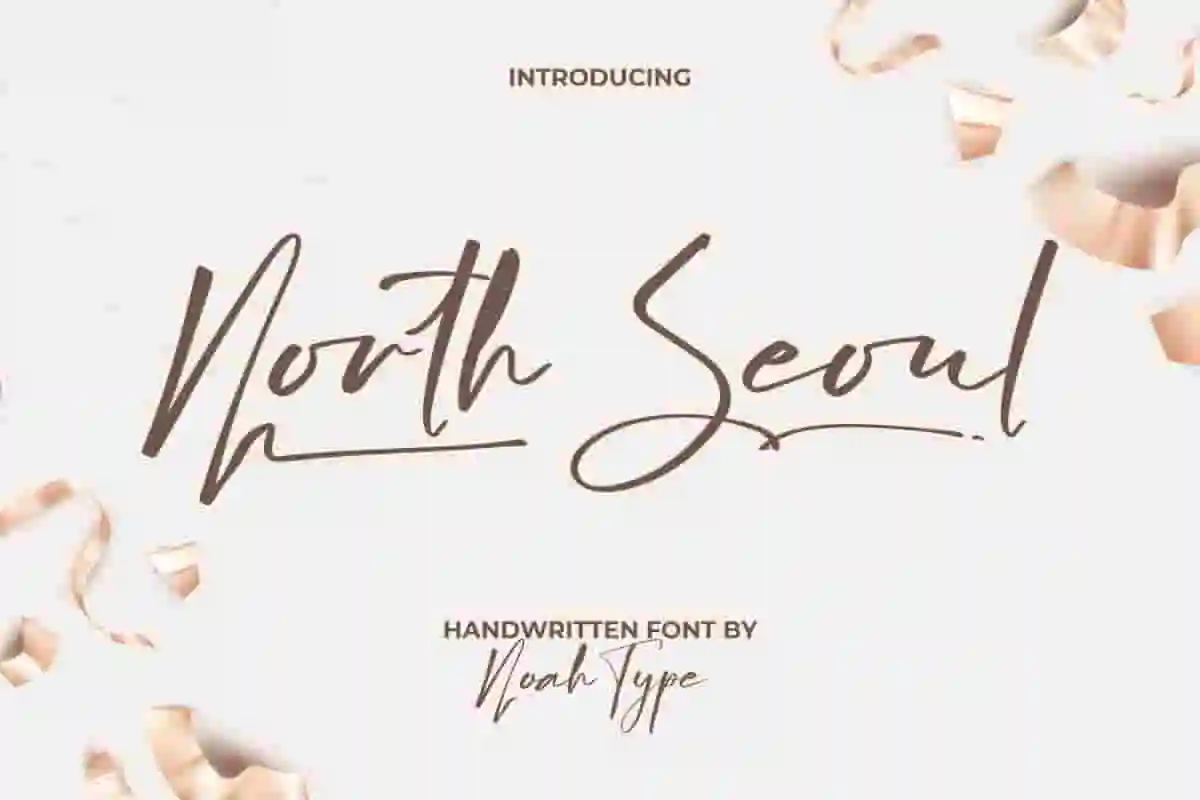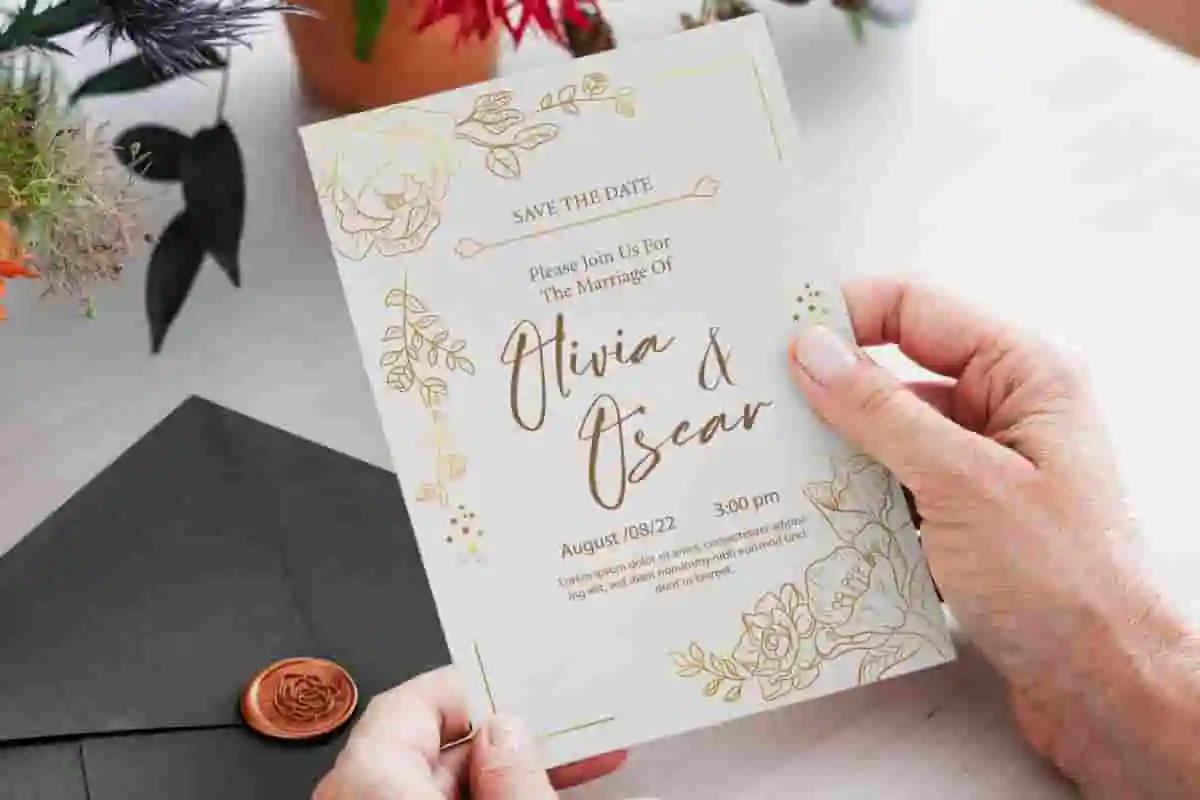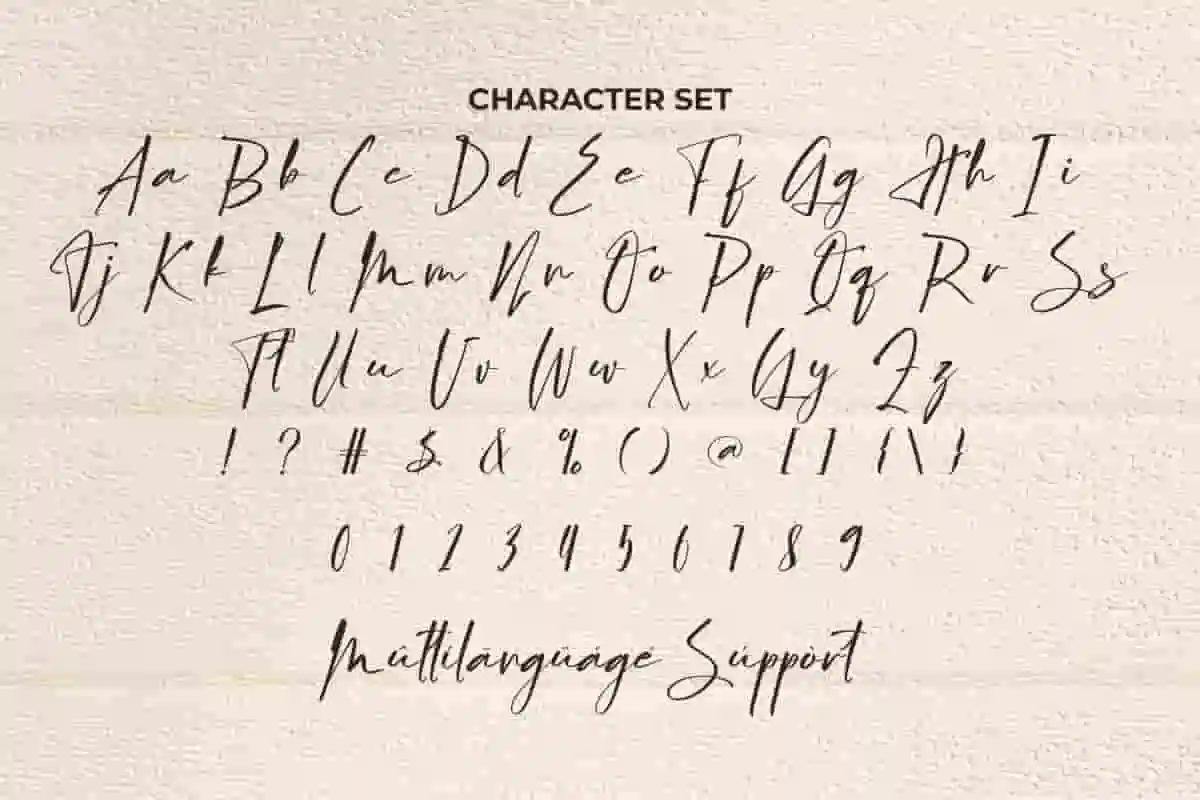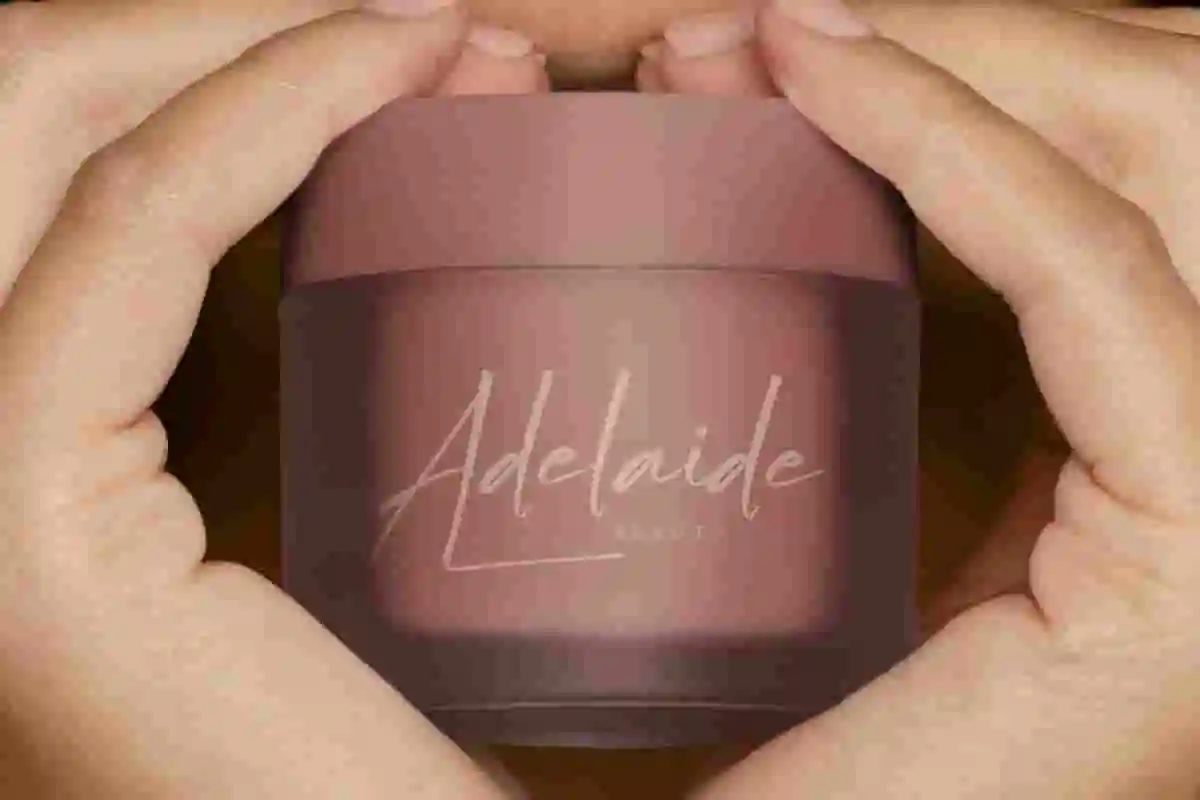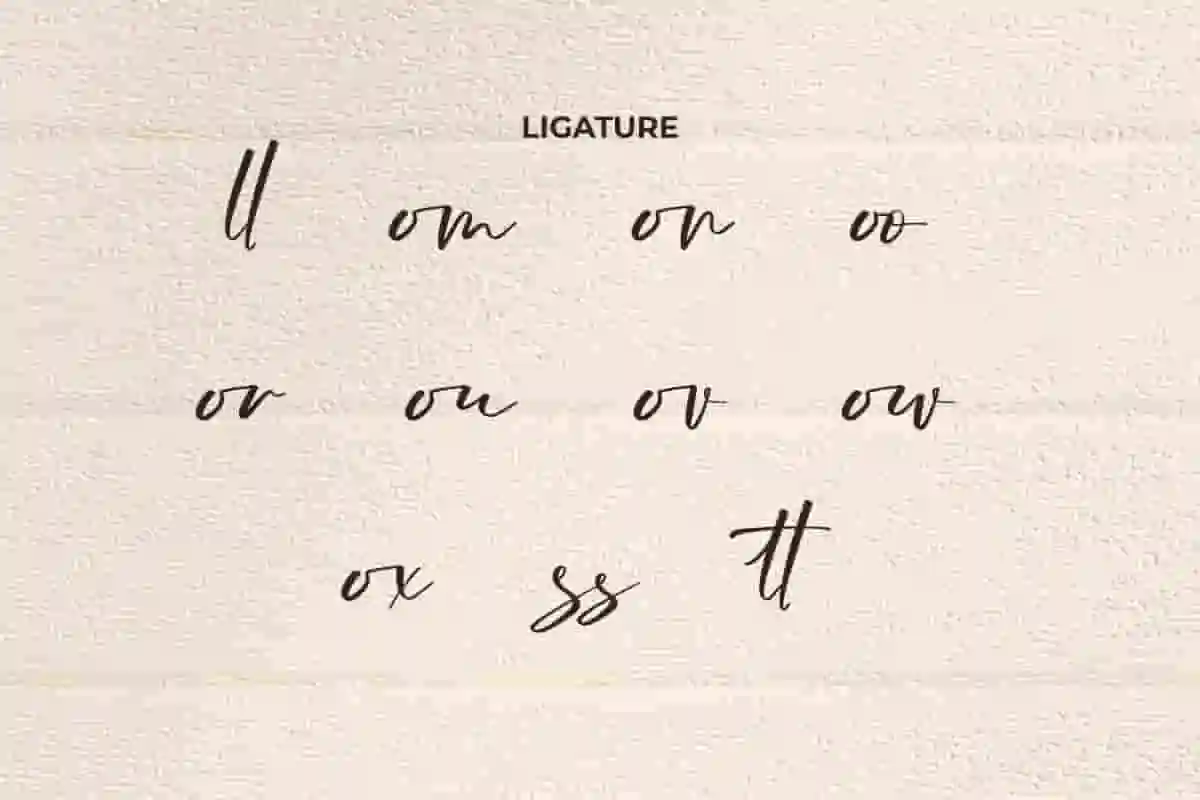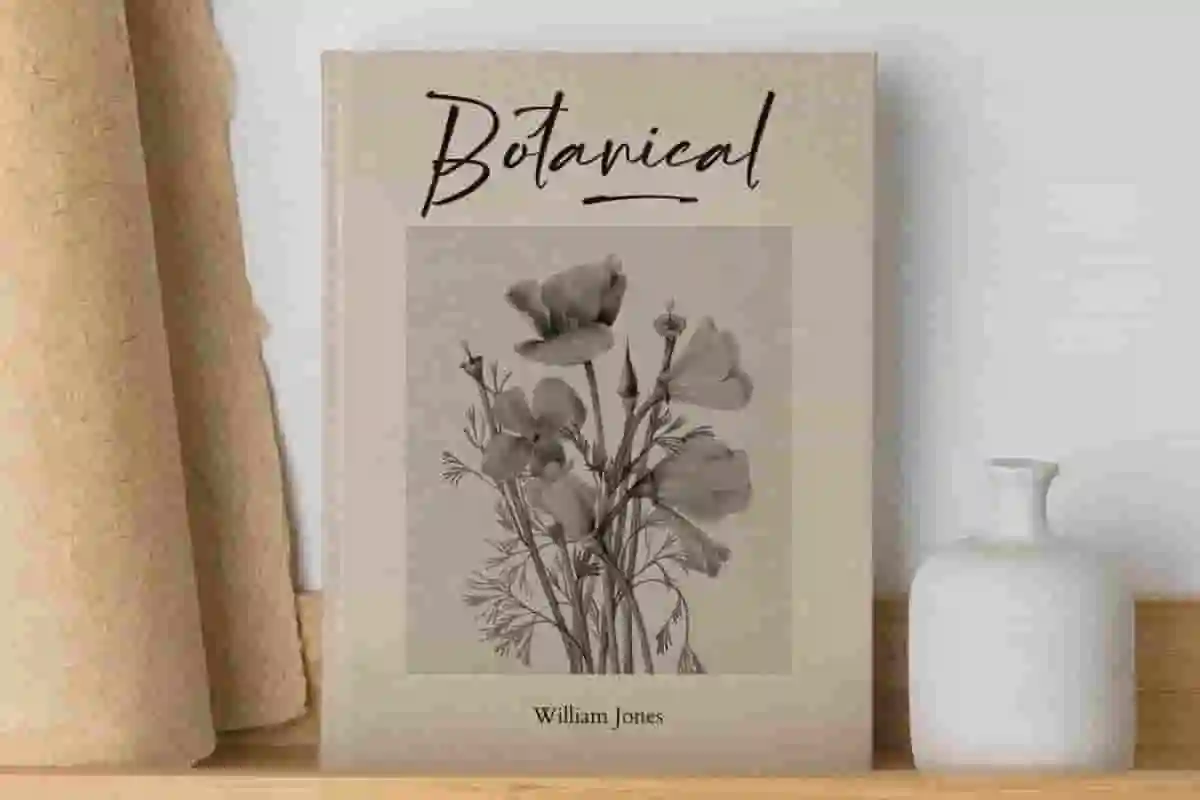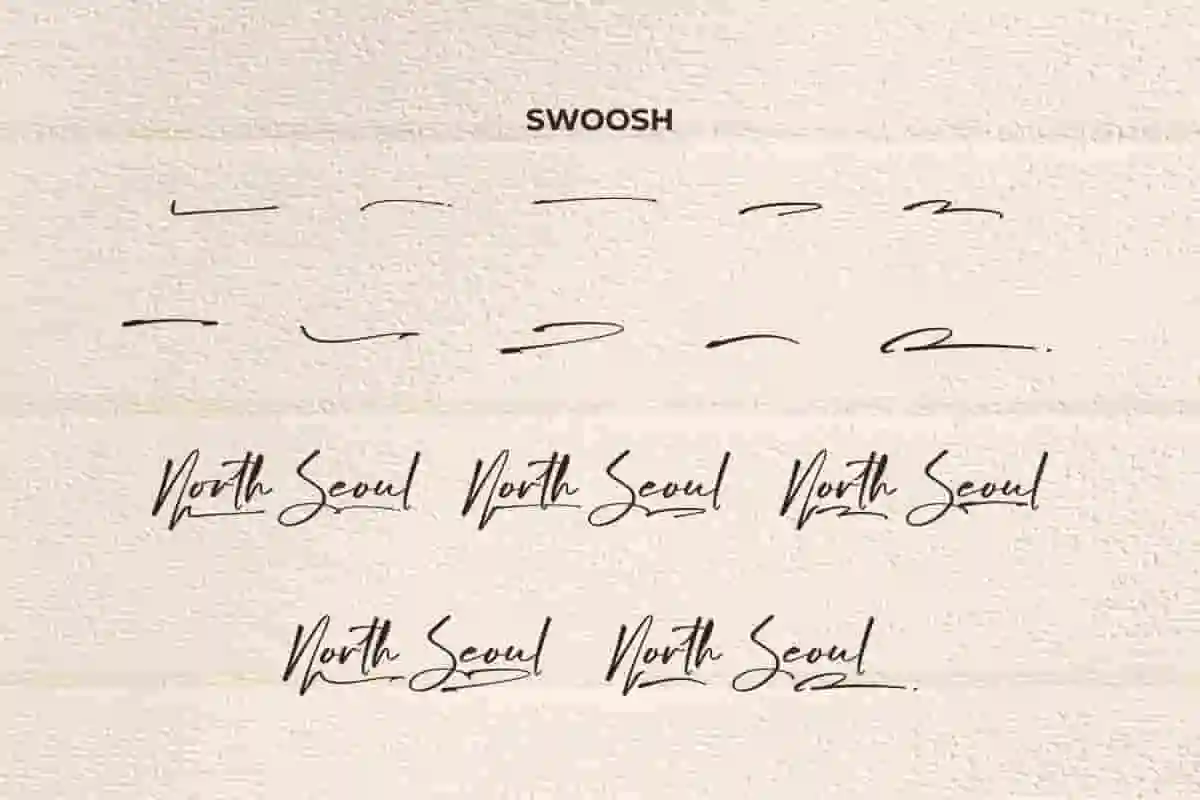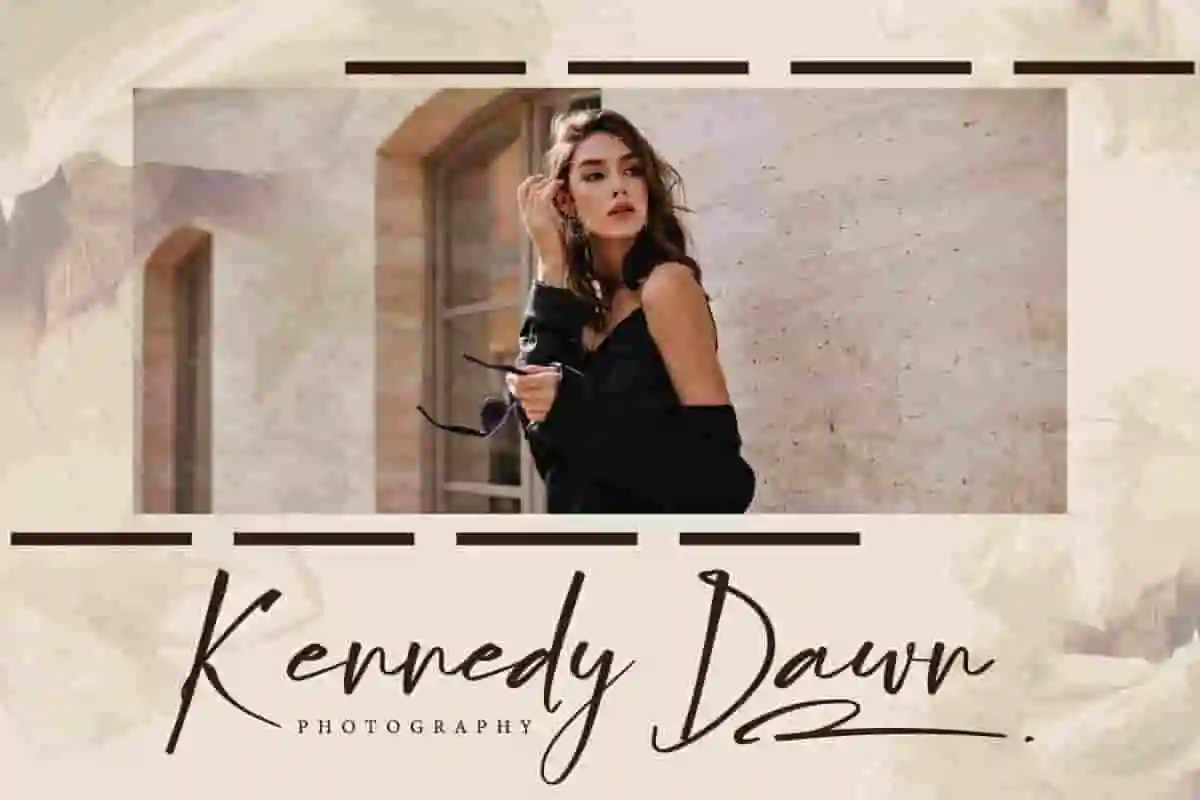
North Seoul Font is a signature script font with classy hand writing style exclusively designed by NoahType. This beautiful font will grab anyone’s attention when added to a design. It will be suitable for any industries, such as accessories, author, clothing brand, cosmetic, event or wedding organizer, handicrafts, perfume, photography, printing, publishing, writer, and more!
North Seoul Font includes full set of Uppercase and Lowercase Basic Characters, Numerals and Punctuation, Ligature, and Swoosh. Get inspired and use this font in your various designs, such as brand logo, brochure, label, mockup design, poster, product packaging, quote, screen printing, stationery, title, website, and more!